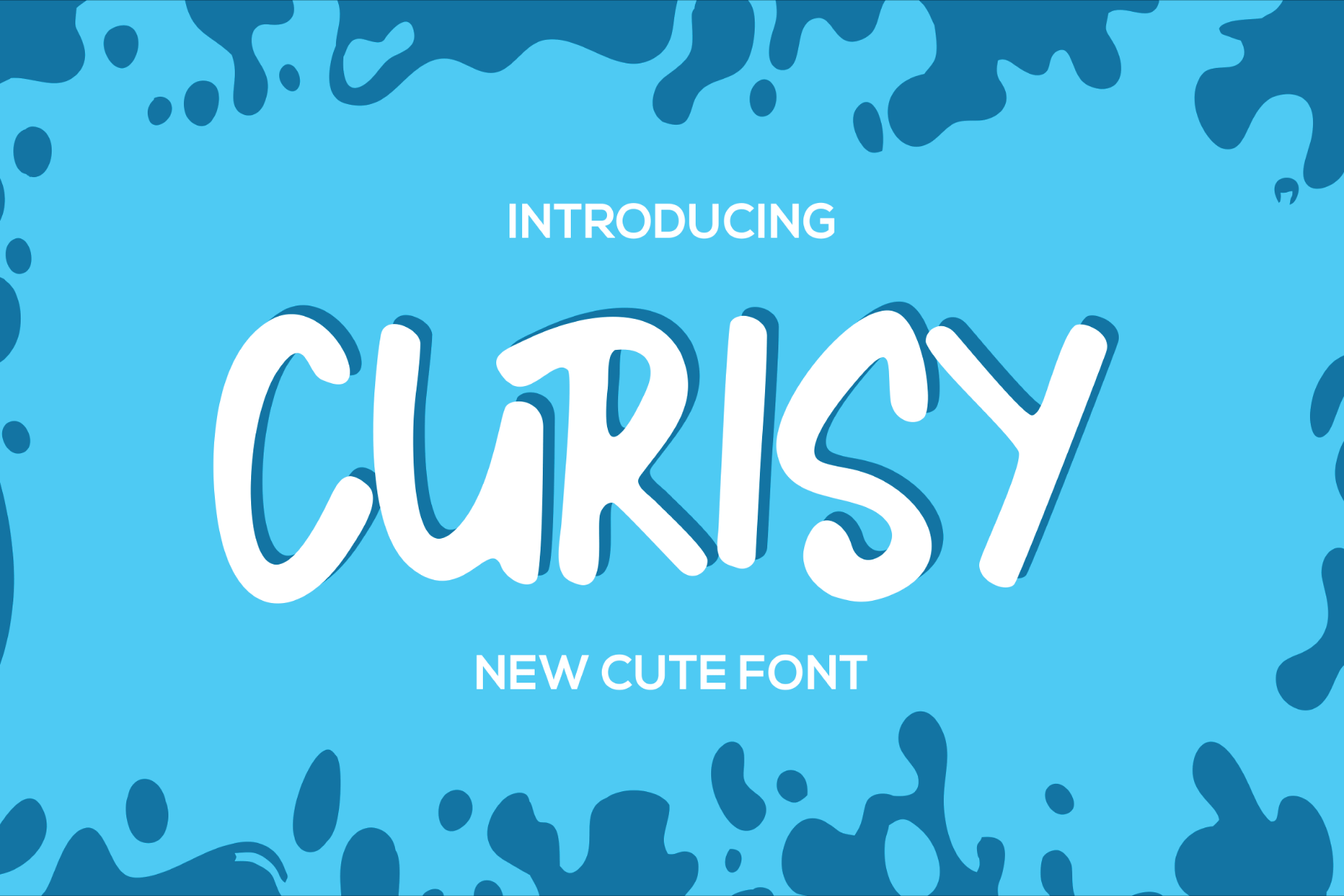
Curisy Font
Introducing our new product Curisy Font - Modern Font
Curisy Font - Modern Font is a bold and authentic display font. The font is suitable for any branding project like logo, t-shirt printing, esport, and many more. outstanding in a wide range of contexts.